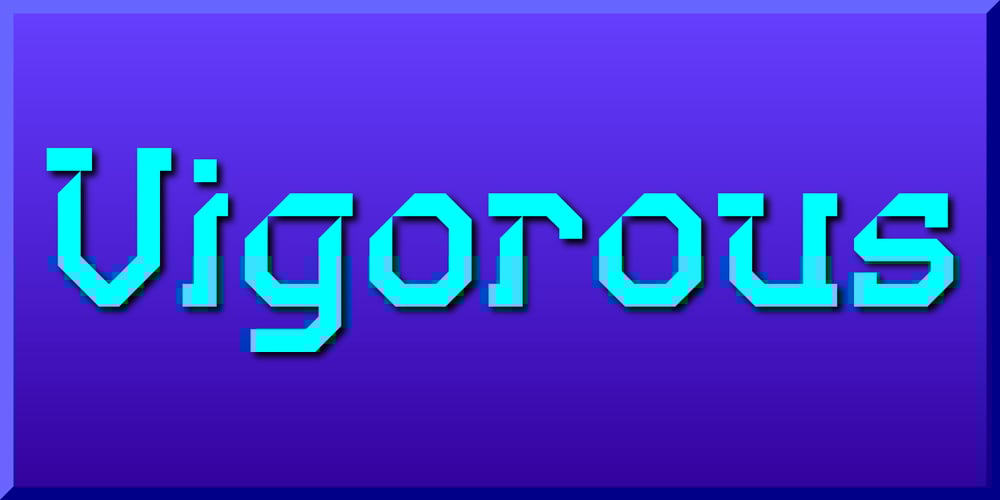
Vigorous Font Family was designed by Gerald Gallo and published by Gerald Gallo. Vigorous contains 2 styles and family package options. Vigorous is a clean and crisp, display font set. As their names imply, Vigorous Lower Case has a lowercase alphabet while Vigorous Small Caps has small caps in place of the lowercase alphabet. Both fonts have the same uppercase alphabet, numbers, accented characters, punctuation, symbols, and miscellaneous characters. The Vigorous fonts are ideal for headlines or titles – wherever a fresh, unique font is desirable. Vigorous Lower Case and Vigorous Small Caps are sold only as a set priced at $20.